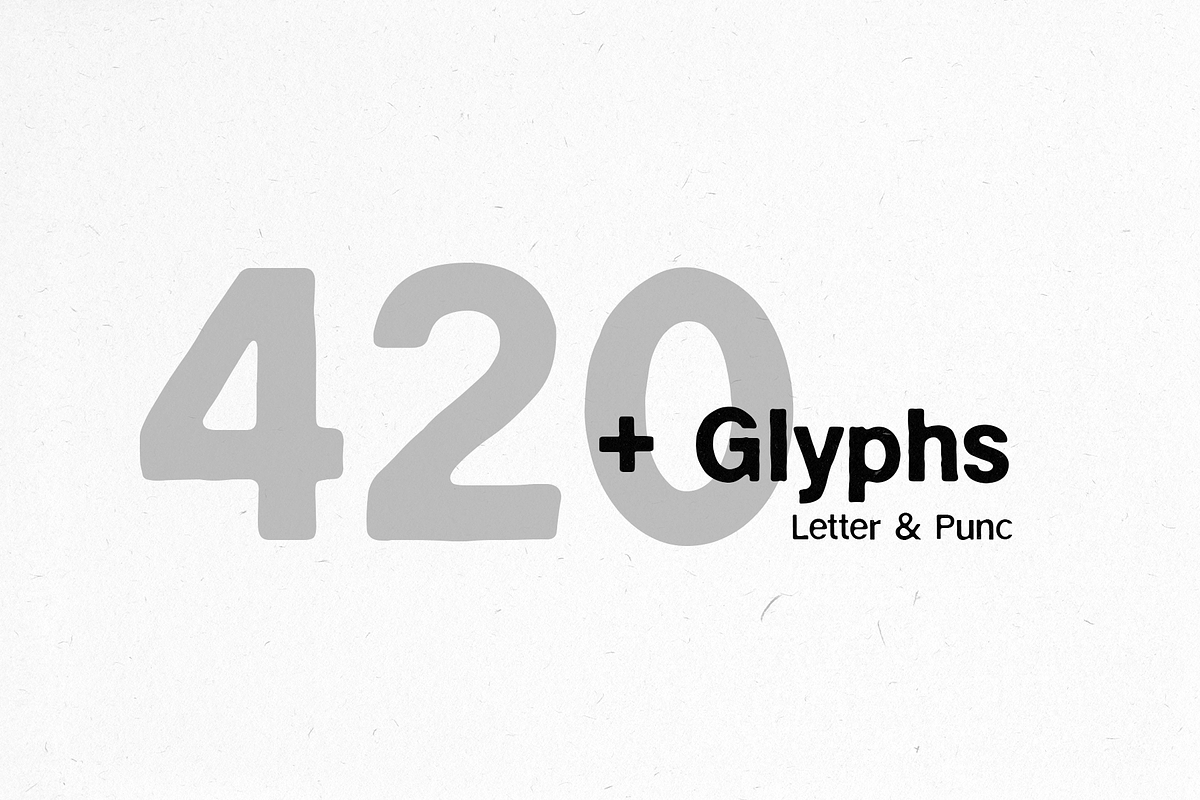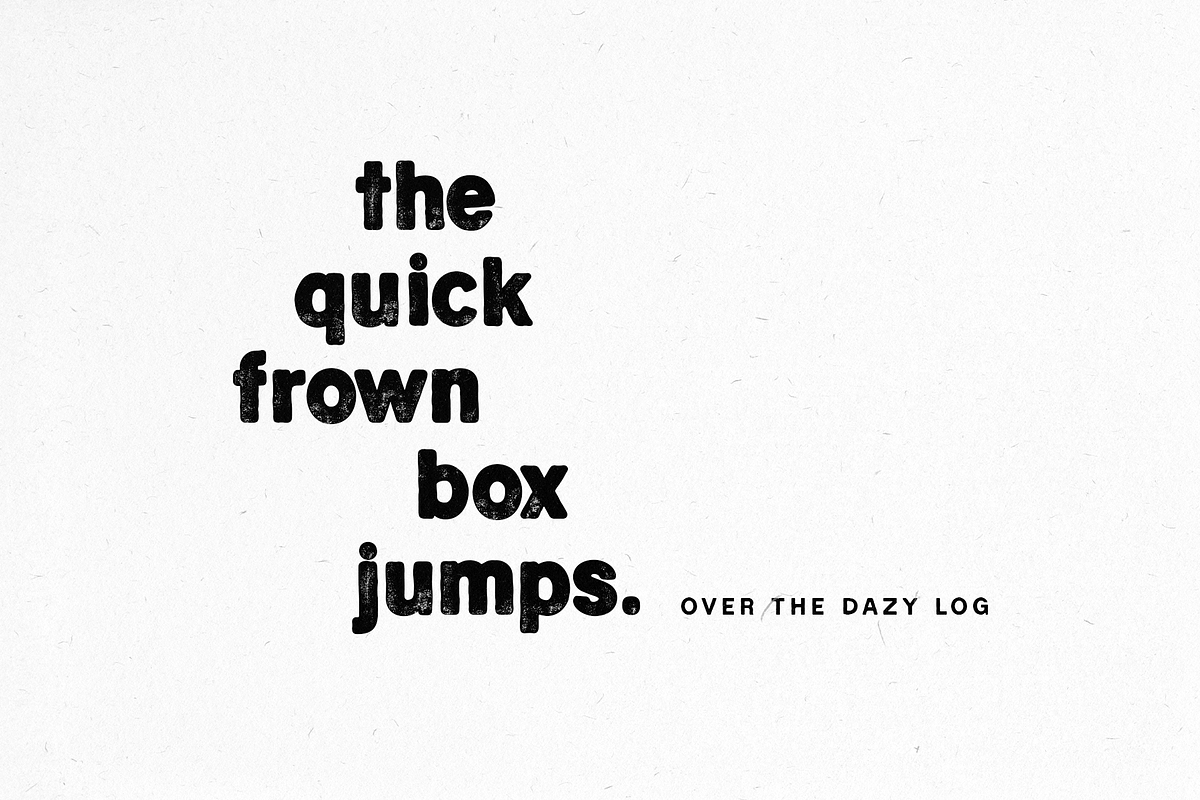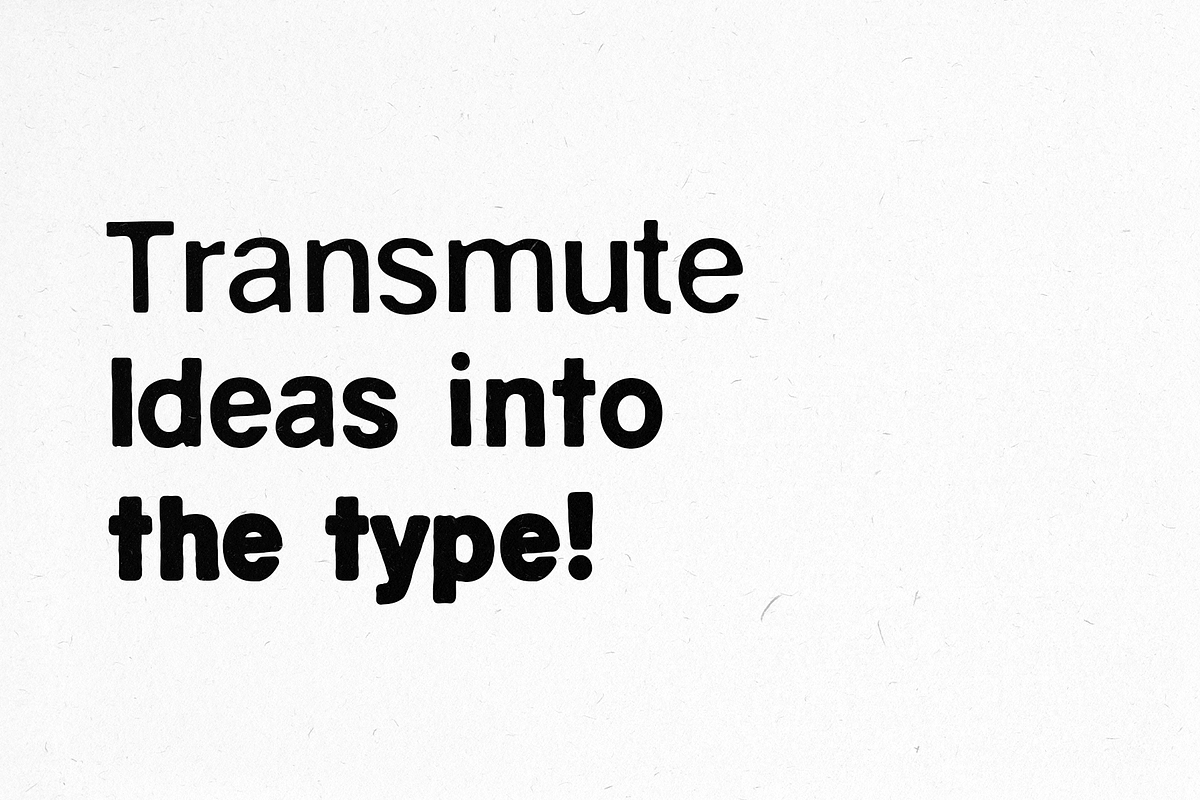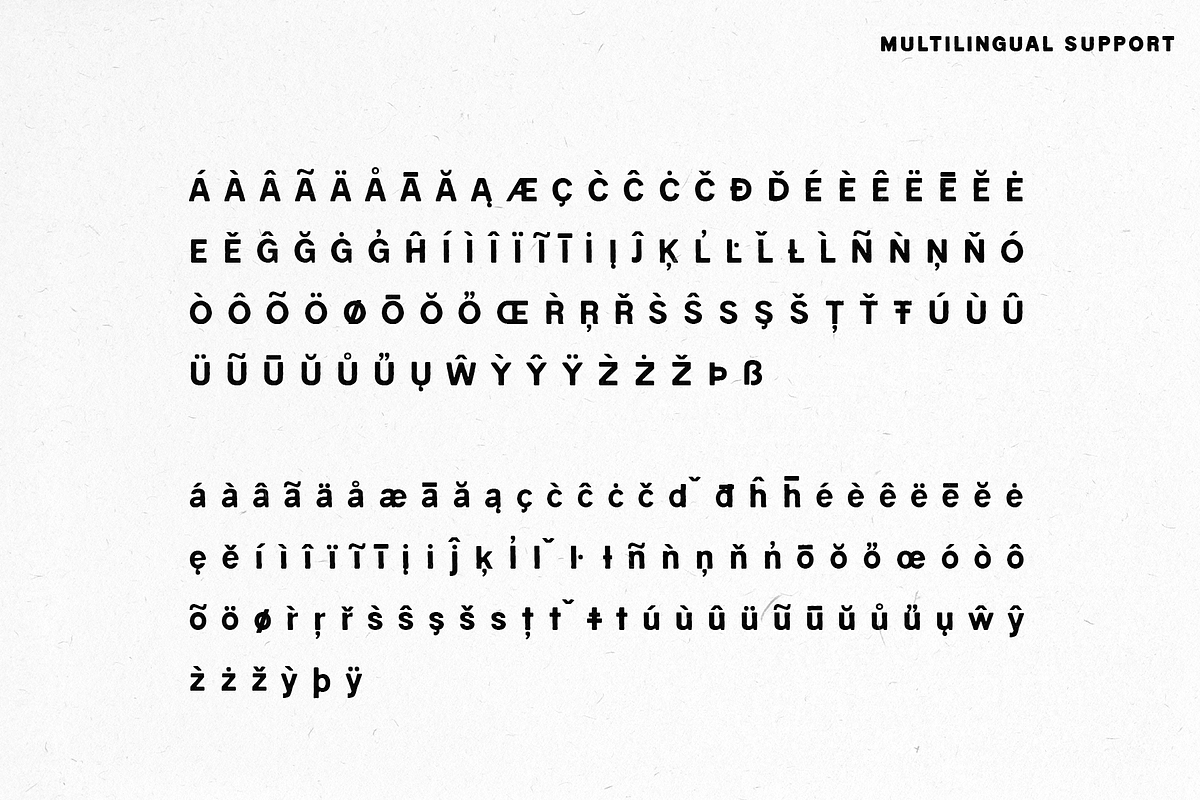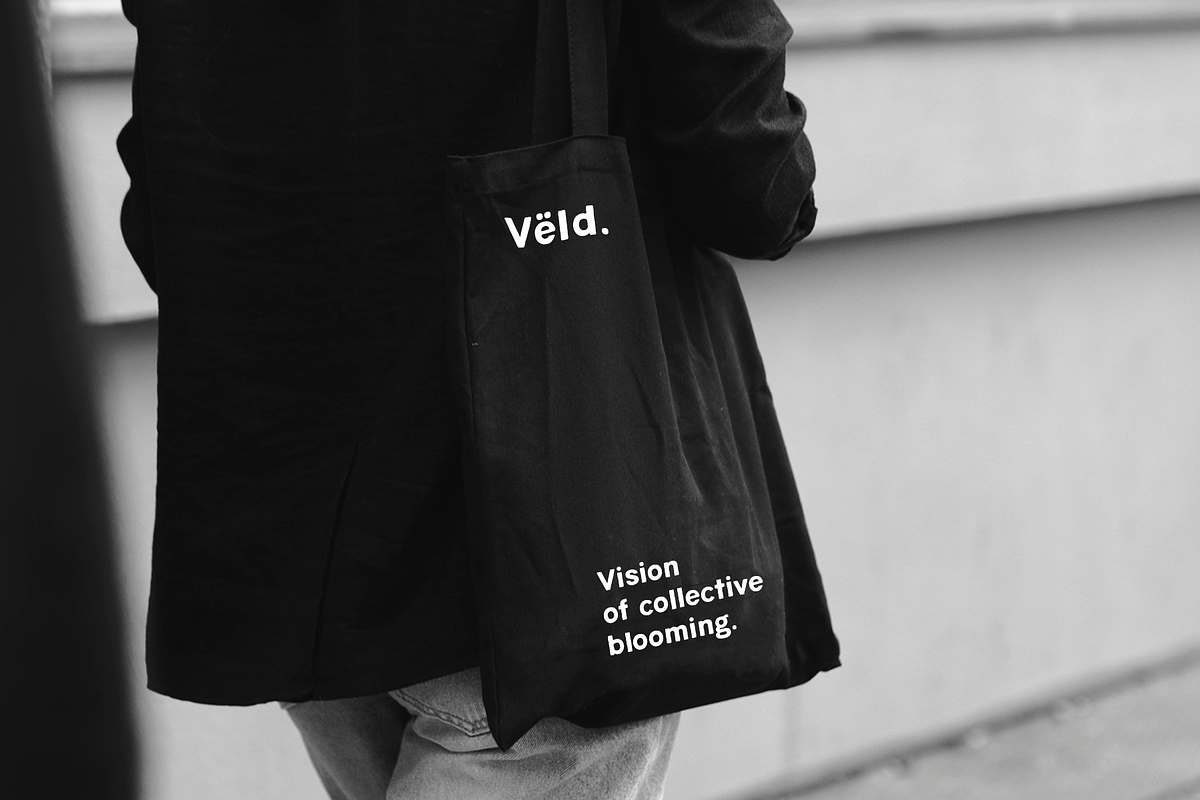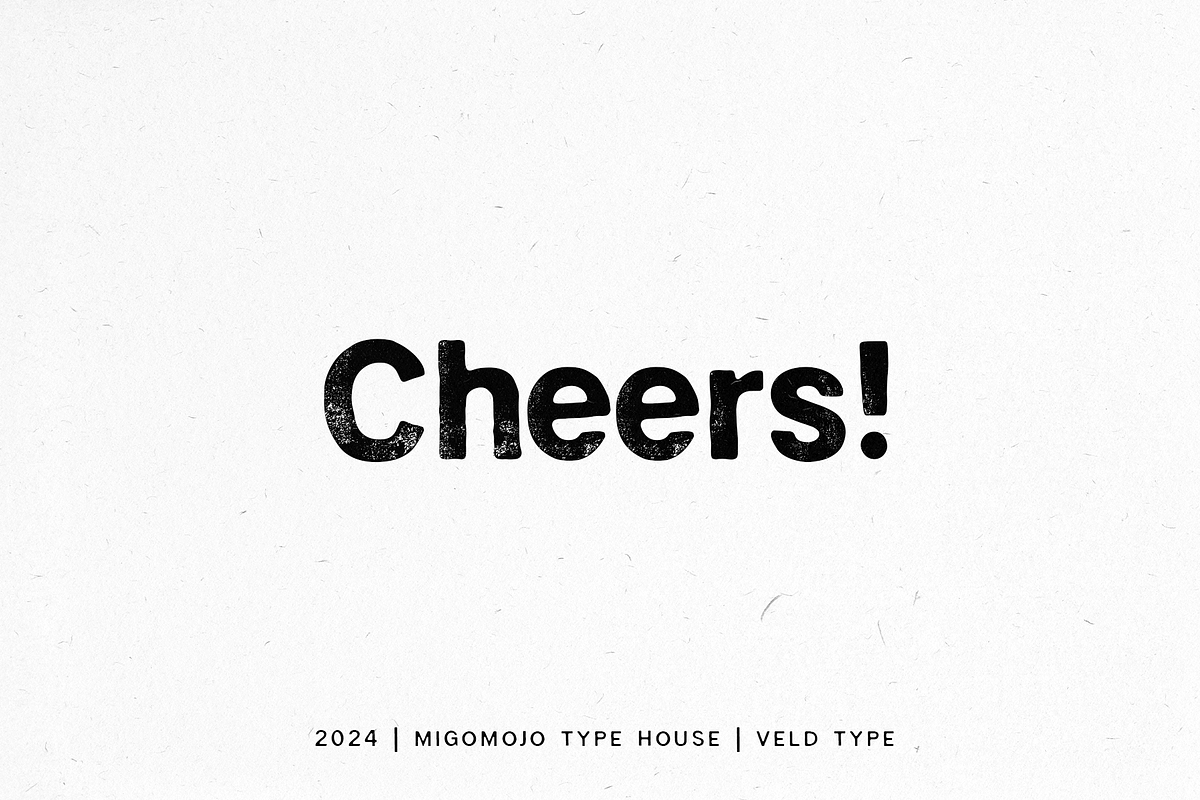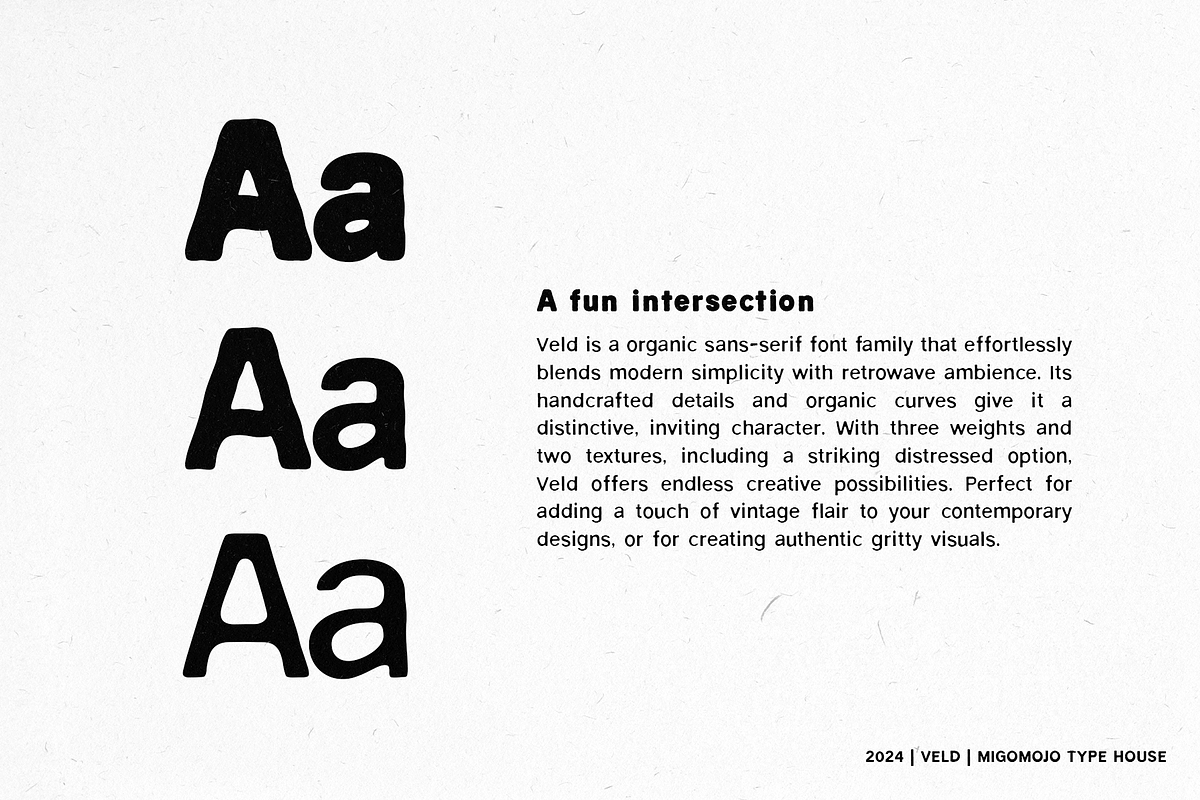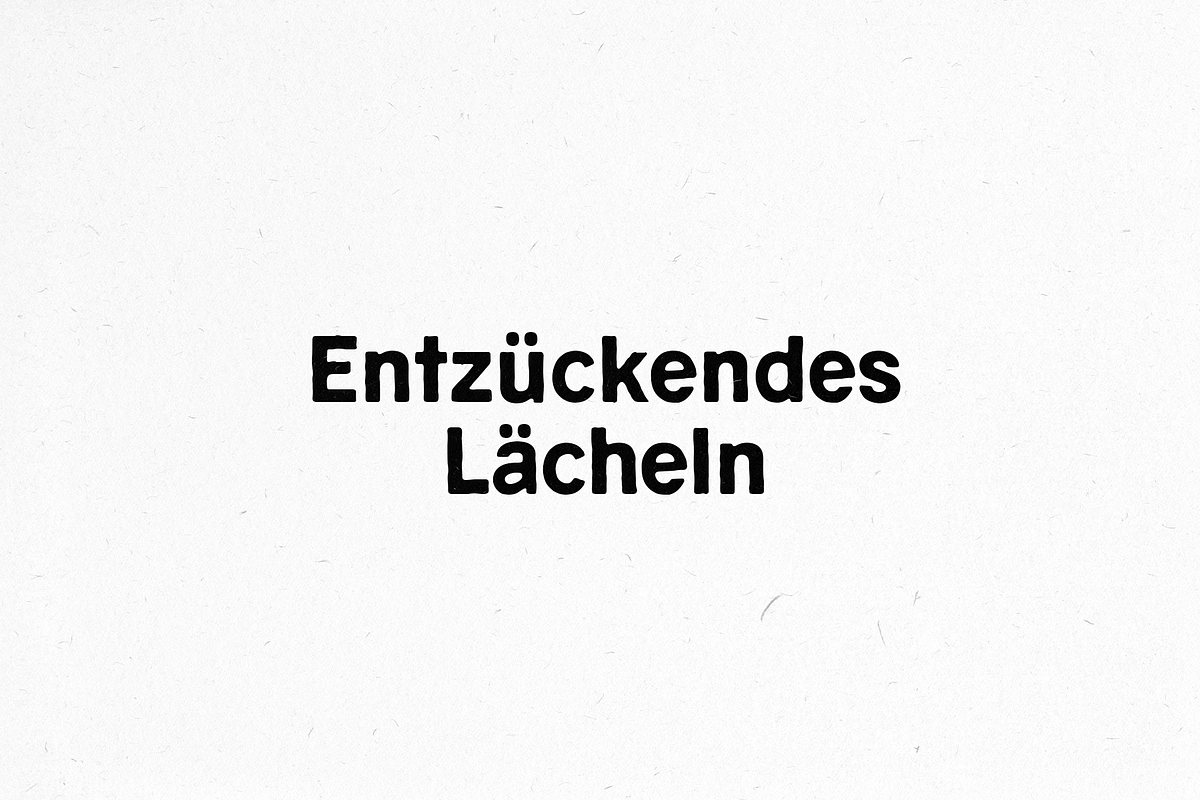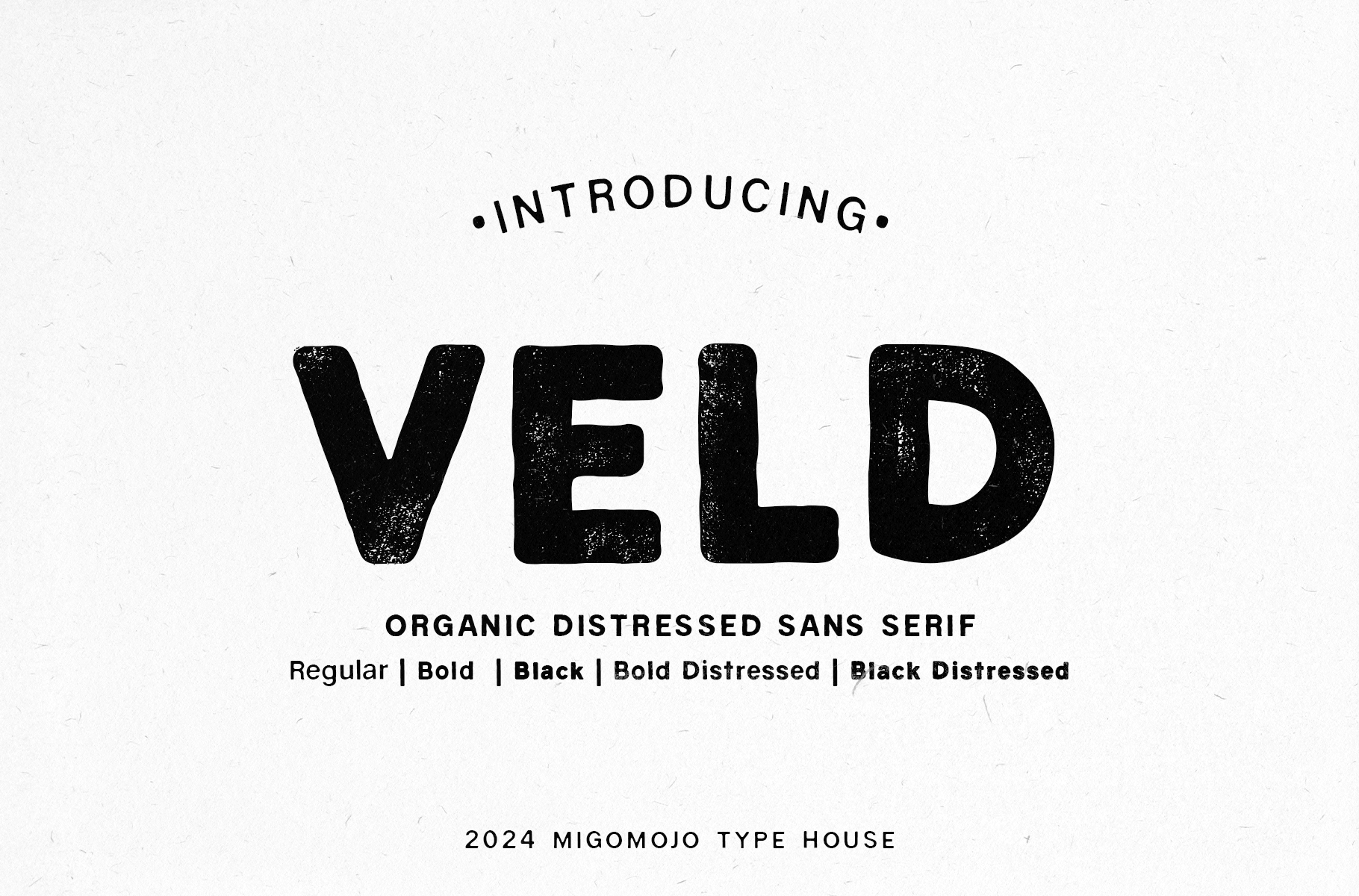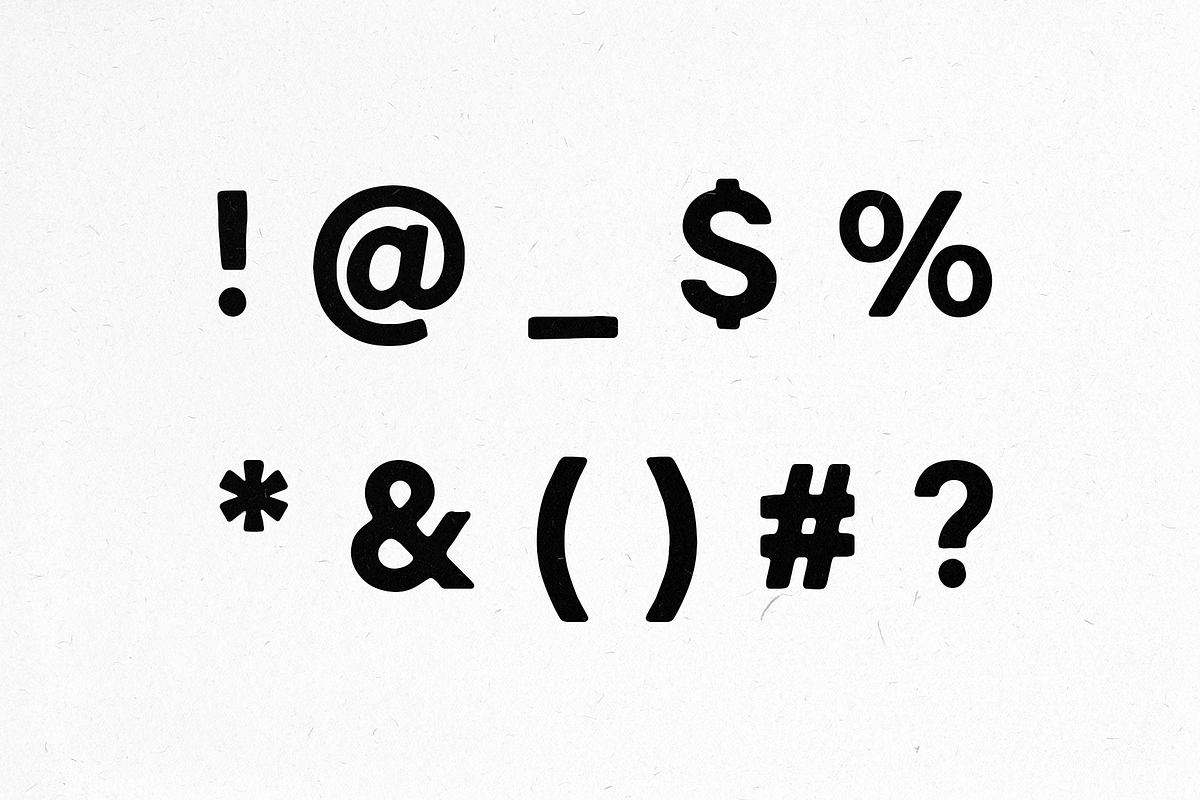
Veld Font Family
Veld is a organic sans-serif font family that effortlessly blends modern simplicity with vintage ambience. Its handcrafted details and organic curves give it a distinctive, inviting character. With three weights and two textures, including a striking distressed option, Veld offers endless creative possibilities. Perfect for adding a touch of vintage flair to your contemporary designs, or for creating authentic gritty visuals. Cheers!